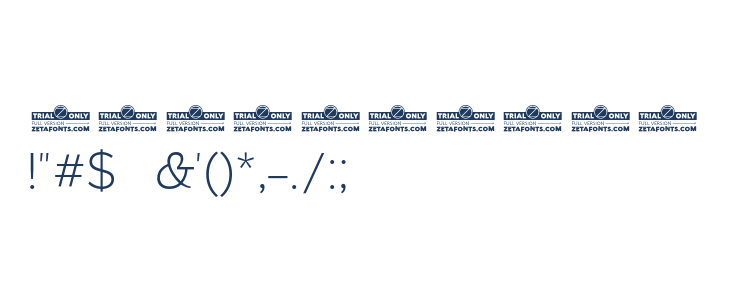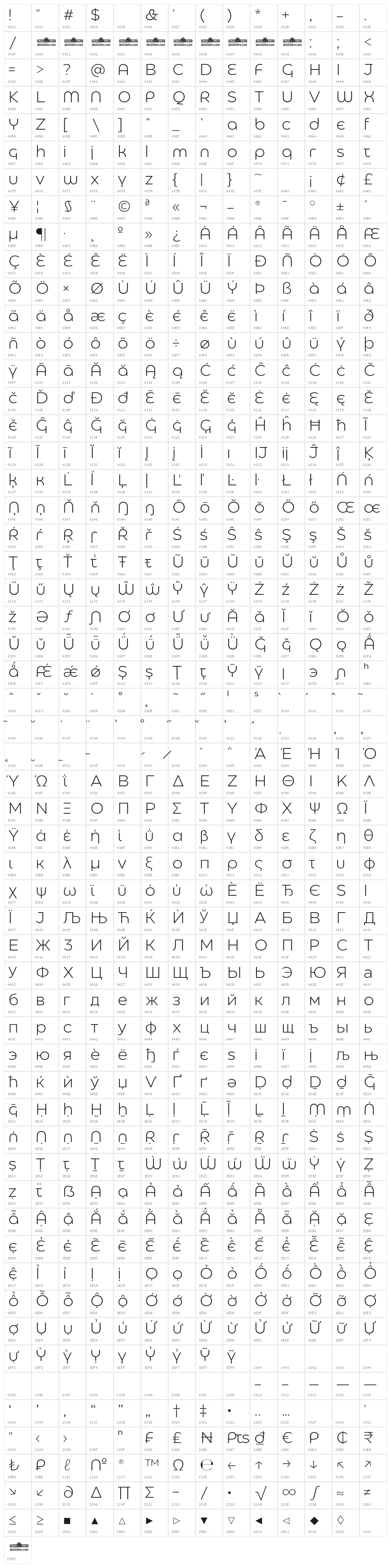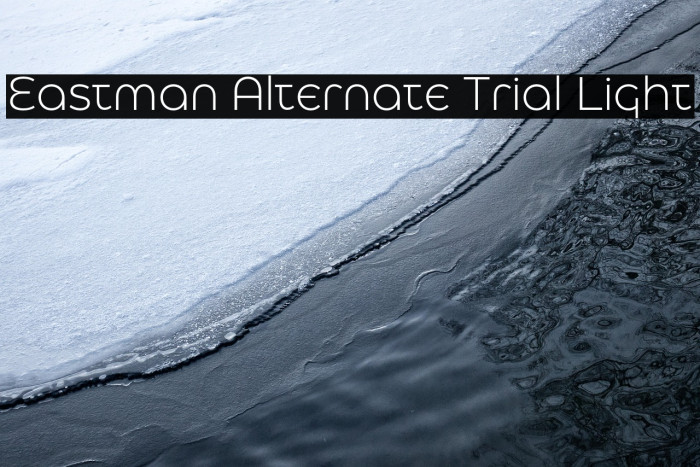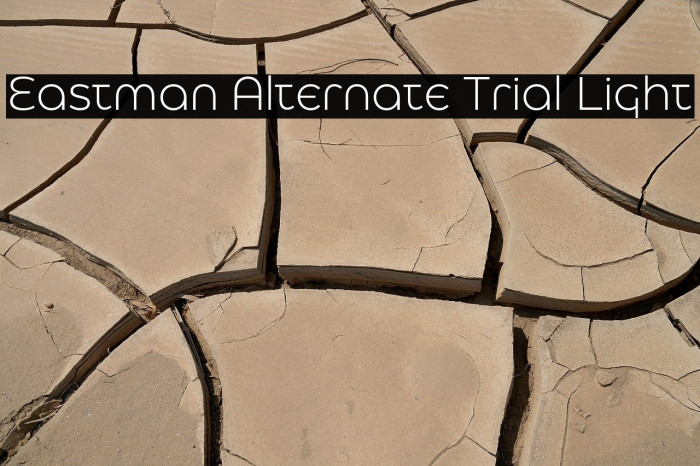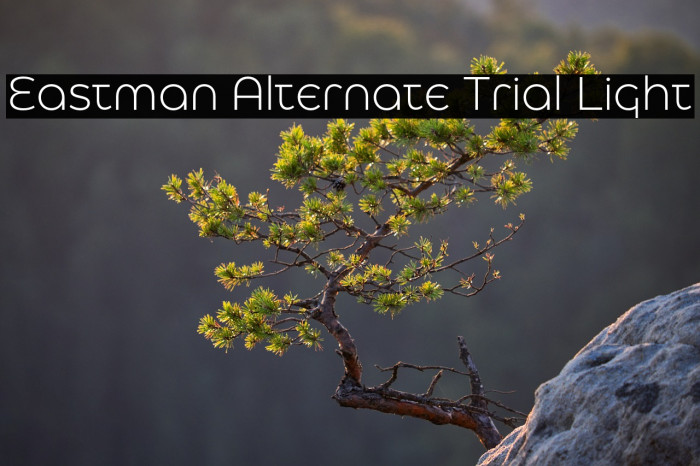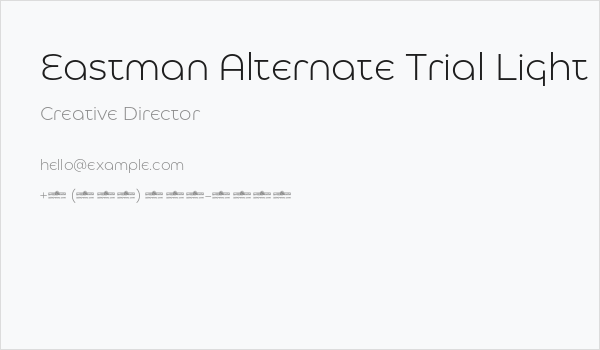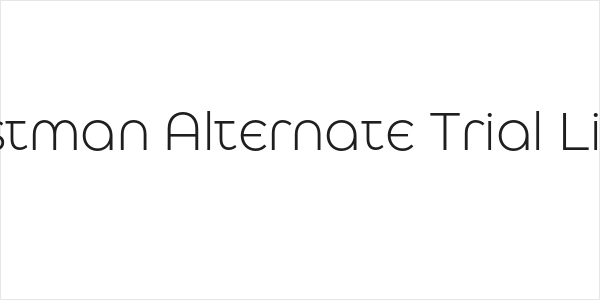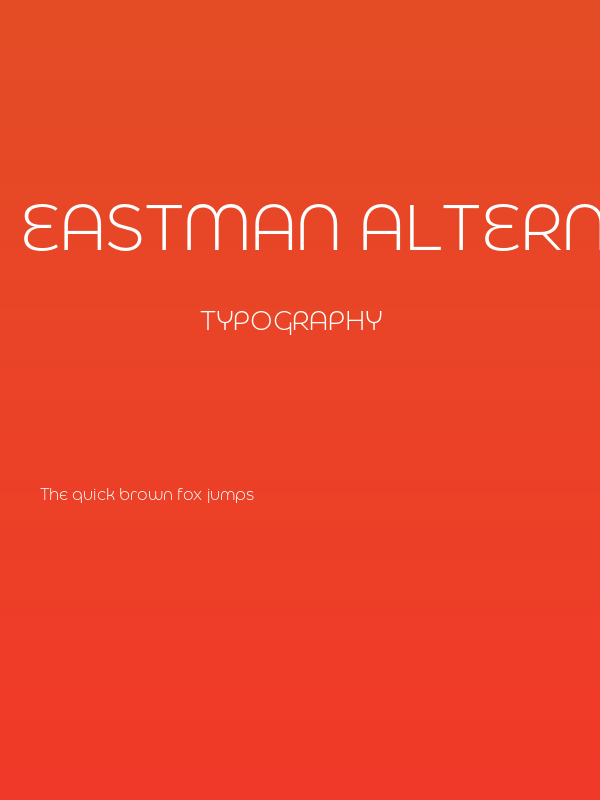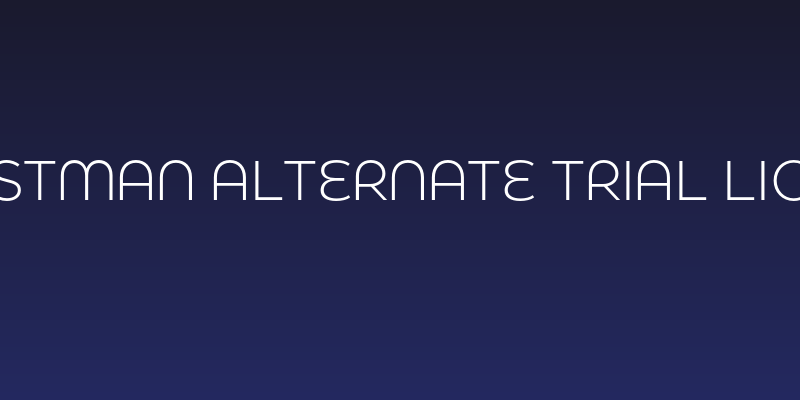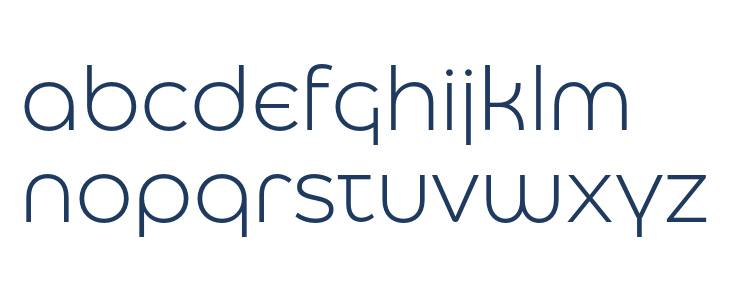
Eastman Alternate Trial Light Font
Eastman Alternate Trial Light Description
This font embodies a sleek and modern aesthetic with its clean, geometric lines and minimalistic design. The characters are crafted with a uniform stroke width, giving it a consistent and harmonious appearance. The uppercase and lowercase letters maintain a balanced proportion, enhancing readability while retaining a stylish edge. The numerals and special characters are designed to complement the alphabet, ensuring a cohesive look across all text elements. Its simplicity and elegance make it versatile for various design applications.